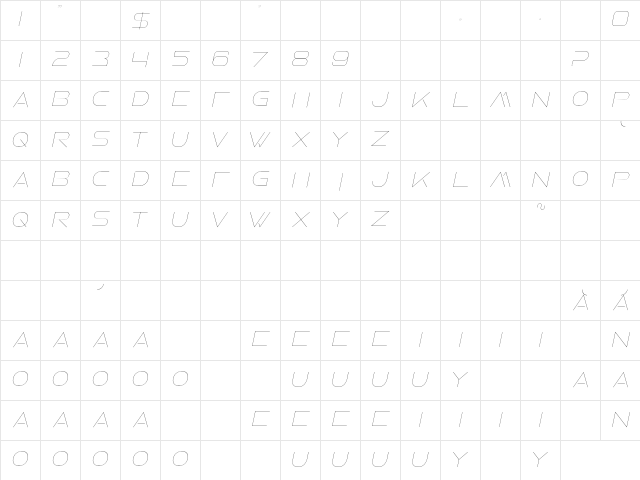
Faxine Sky Italic
Design Context for Faxine Sky Typeface
Faxine Sky offers clean, dependable letterforms without strong stylistic allegiance, making it a practical choice for designers who need flexibility. The dynamic lean of this cut emphasises speed and emphasis in any layout.
Pro Tip: Try Faxine Sky for annotation and caption copy alongside an upright companion — the contrast in angle creates a dynamic but ordered typographic system.